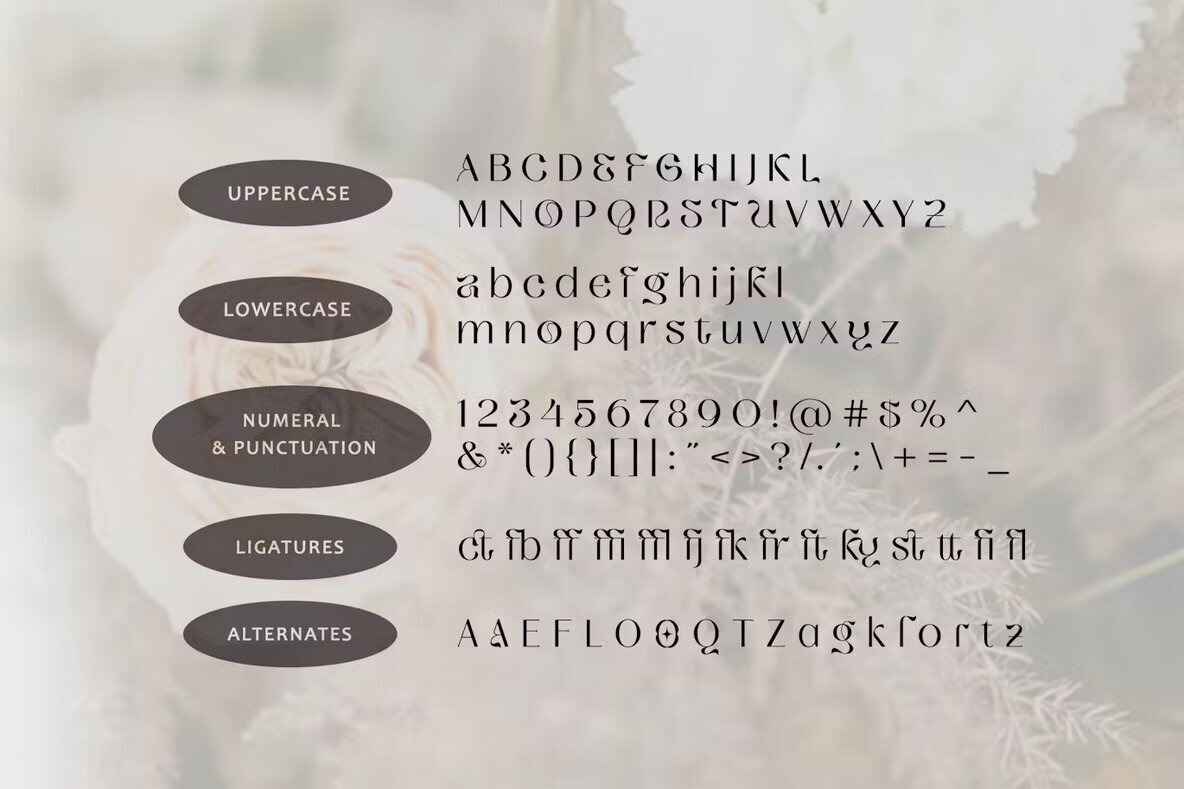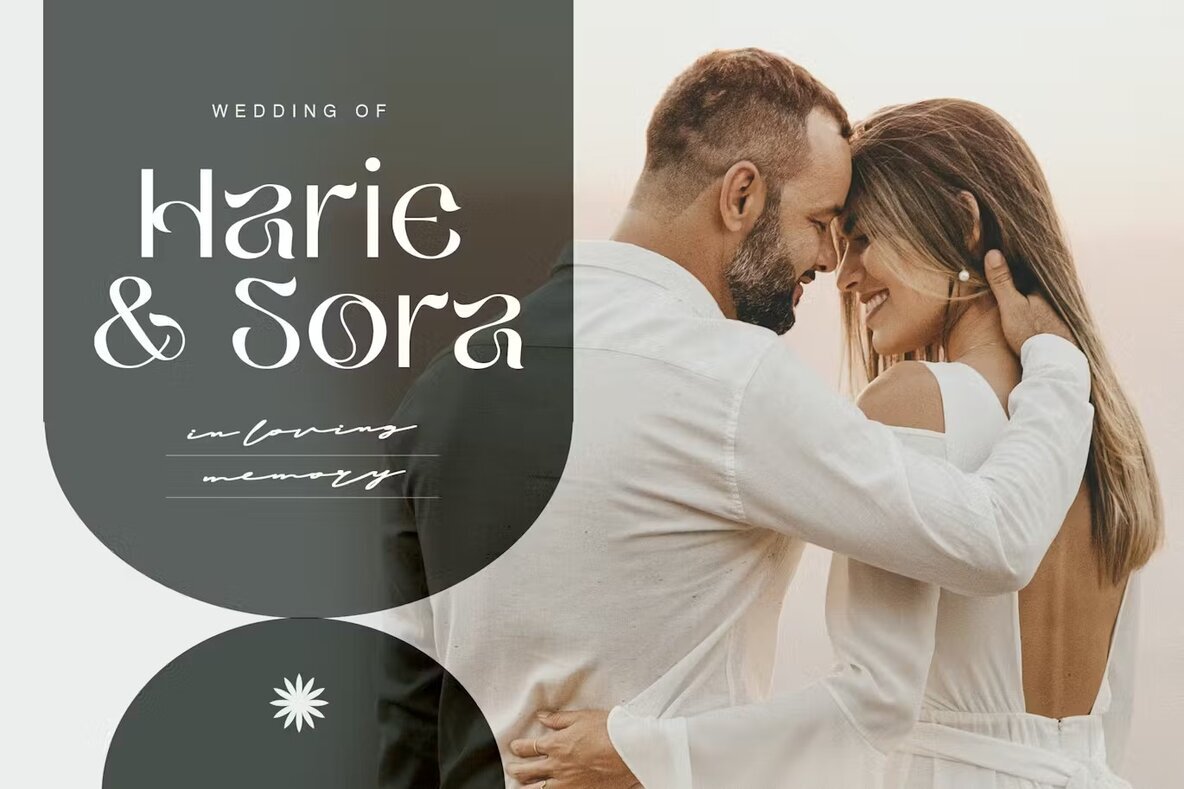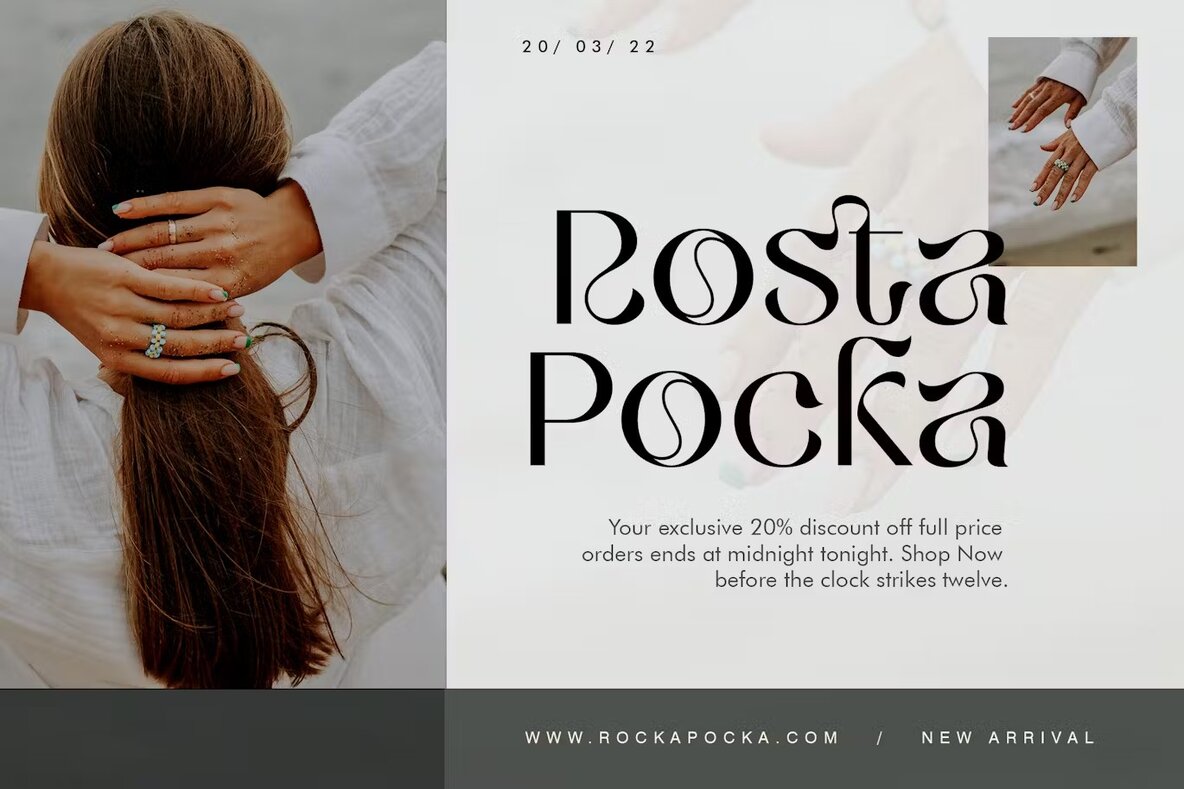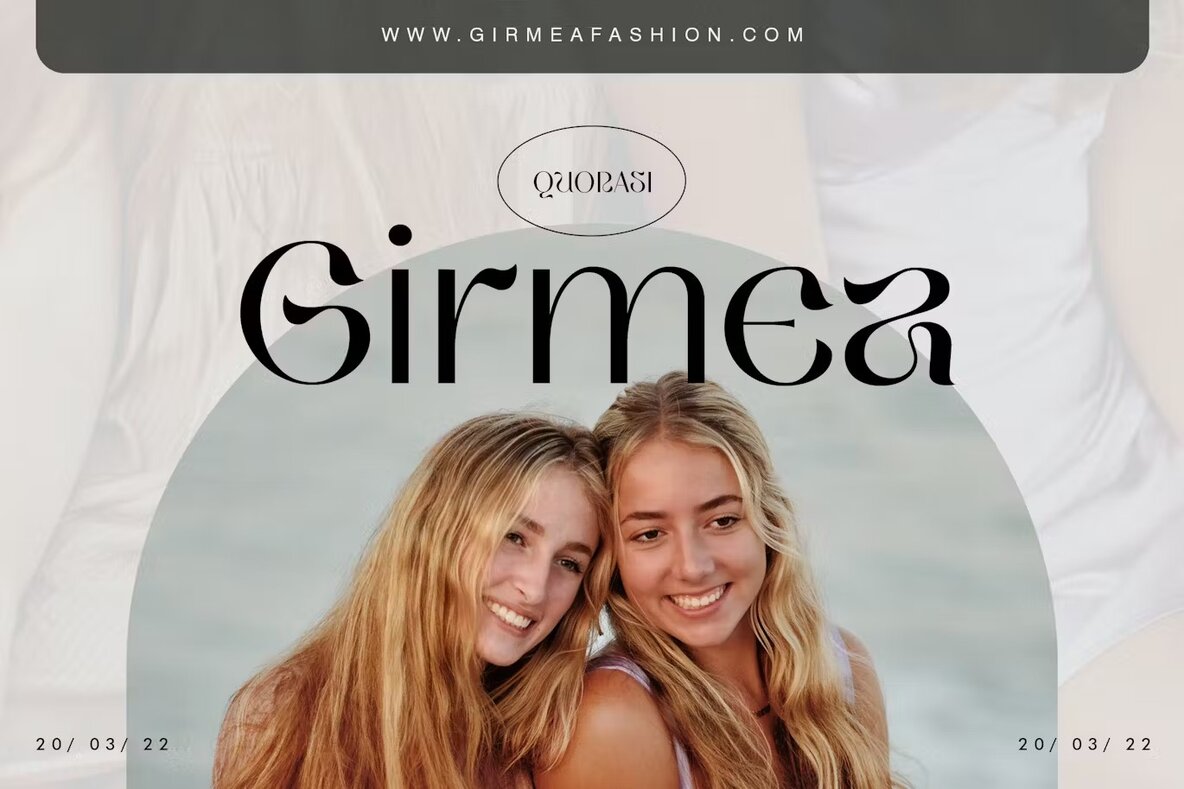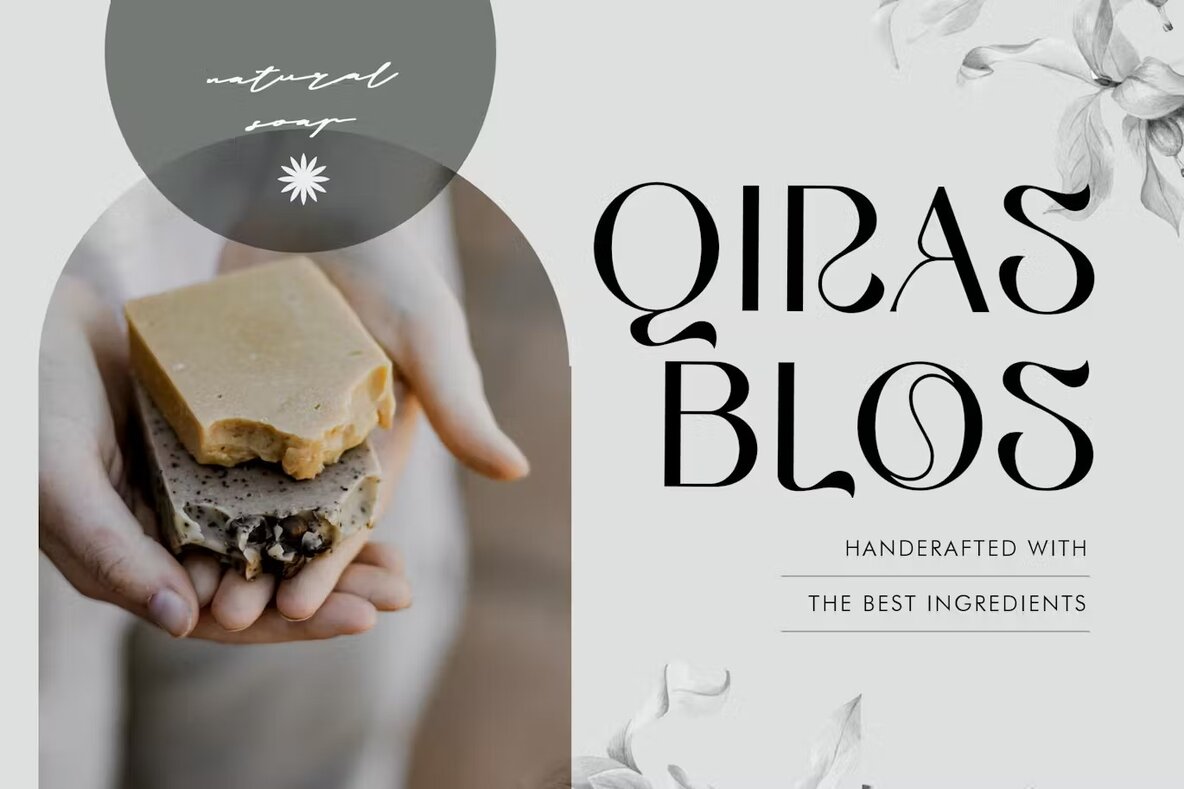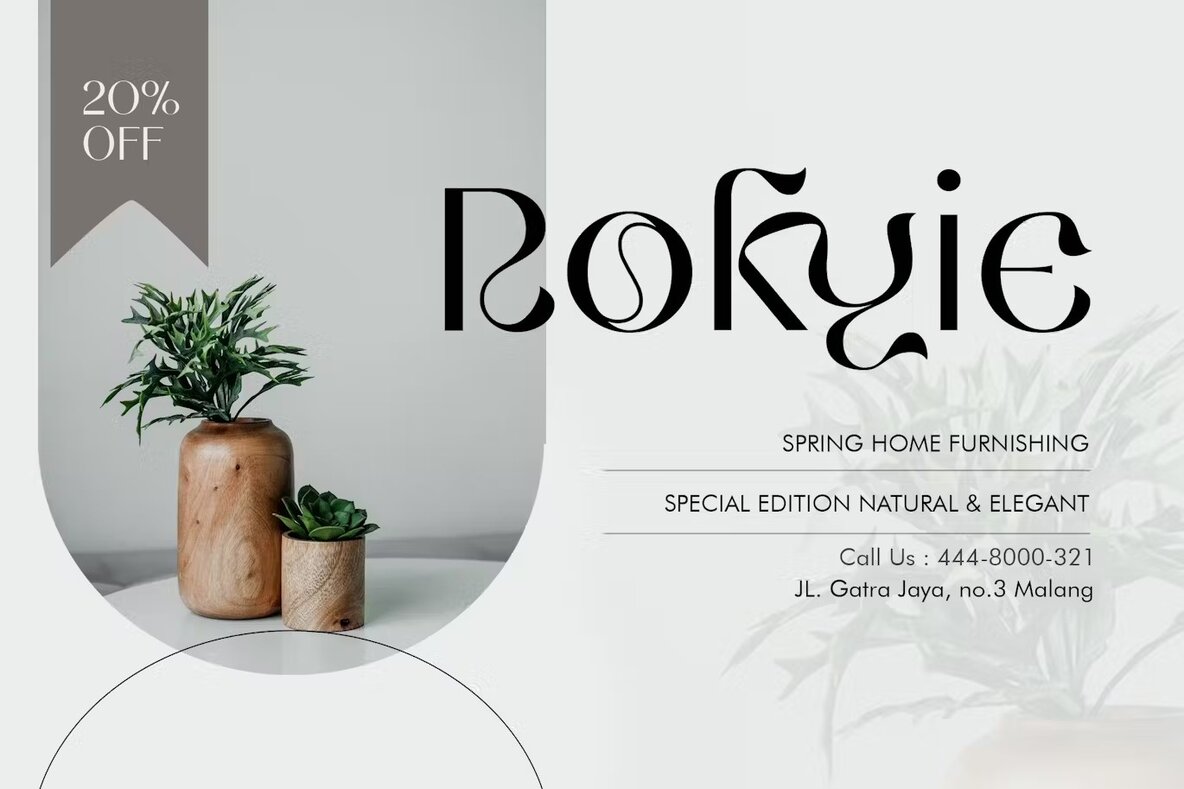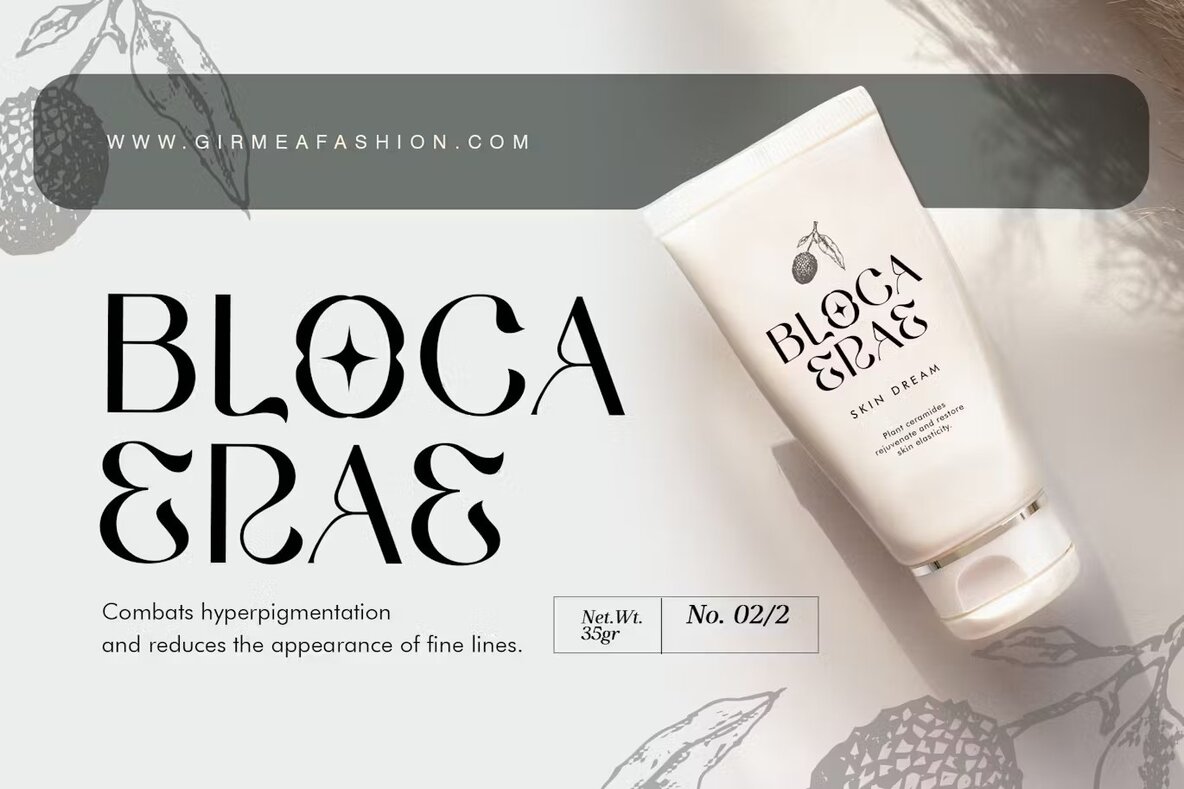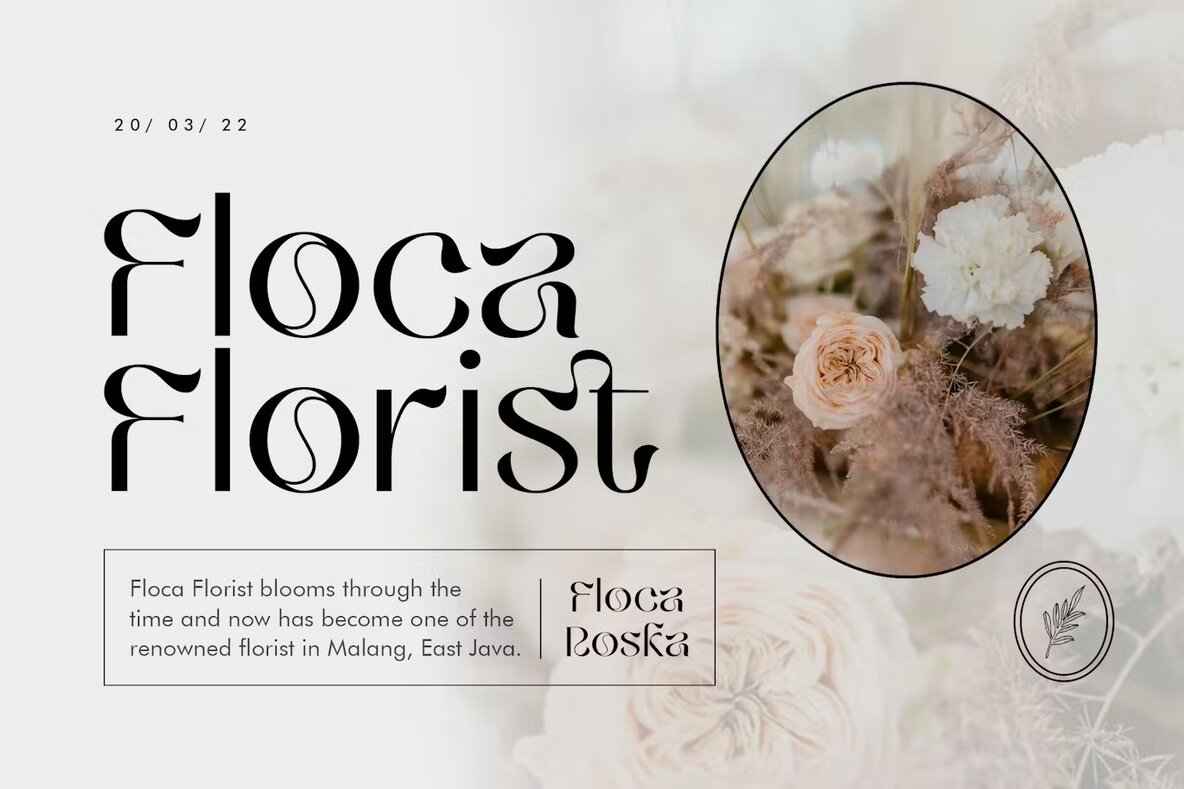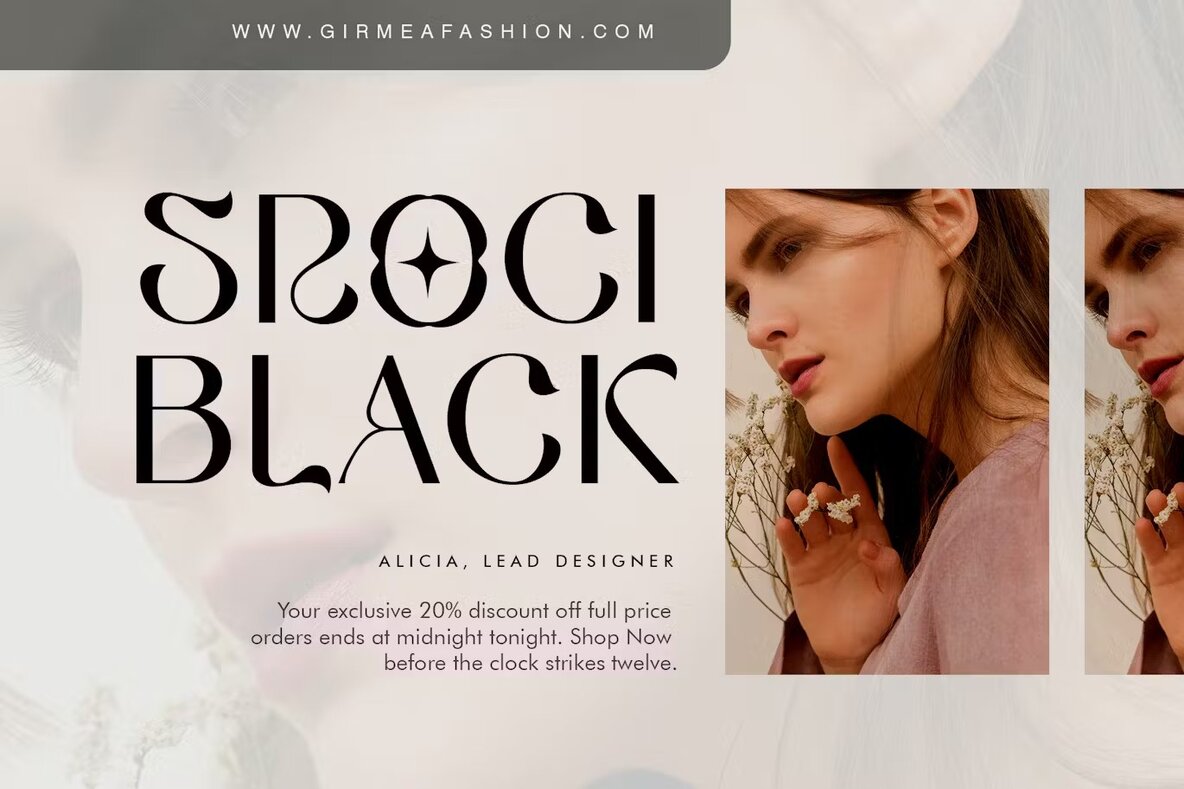
Quorasi Font
Quorasi Regular
Quorasi Sans Serif is a modern, elegant font that combines classic beauty with a polished, contemporary design. The sharp contrast between its thick and thin strokes lends it a sophisticated edge, making it perfect for wedding invitations, branding, logos, and editorial designs. This versatility ensures your projects stand out with a refined and stylish aesthetic that embodies timeless beauty.
Additionally, Quorasi Sans offers unique ligatures, discretionary ligatures, and alternates, providing a distinct and sophisticated look that goes beyond traditional fonts. This font's romantic and elegant style can set the right tone for any special occasion, enhancing your designs with its exceptional grace and sophistication.